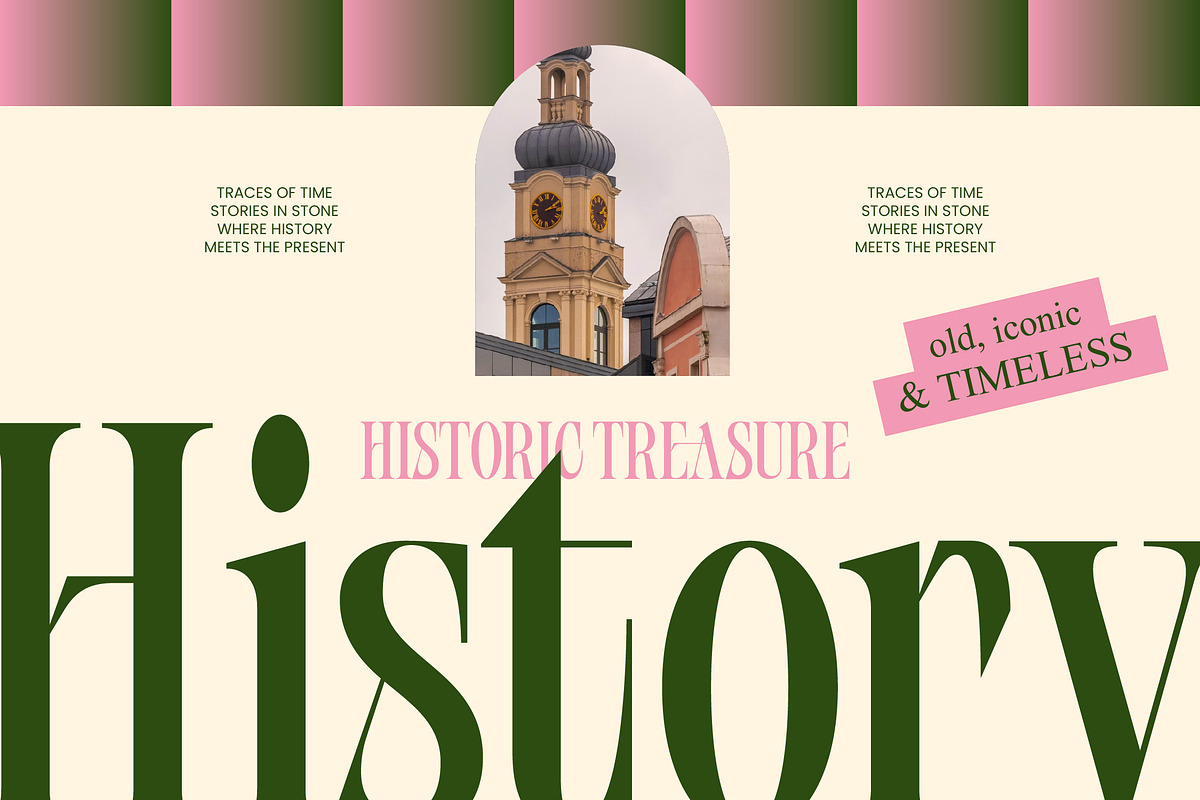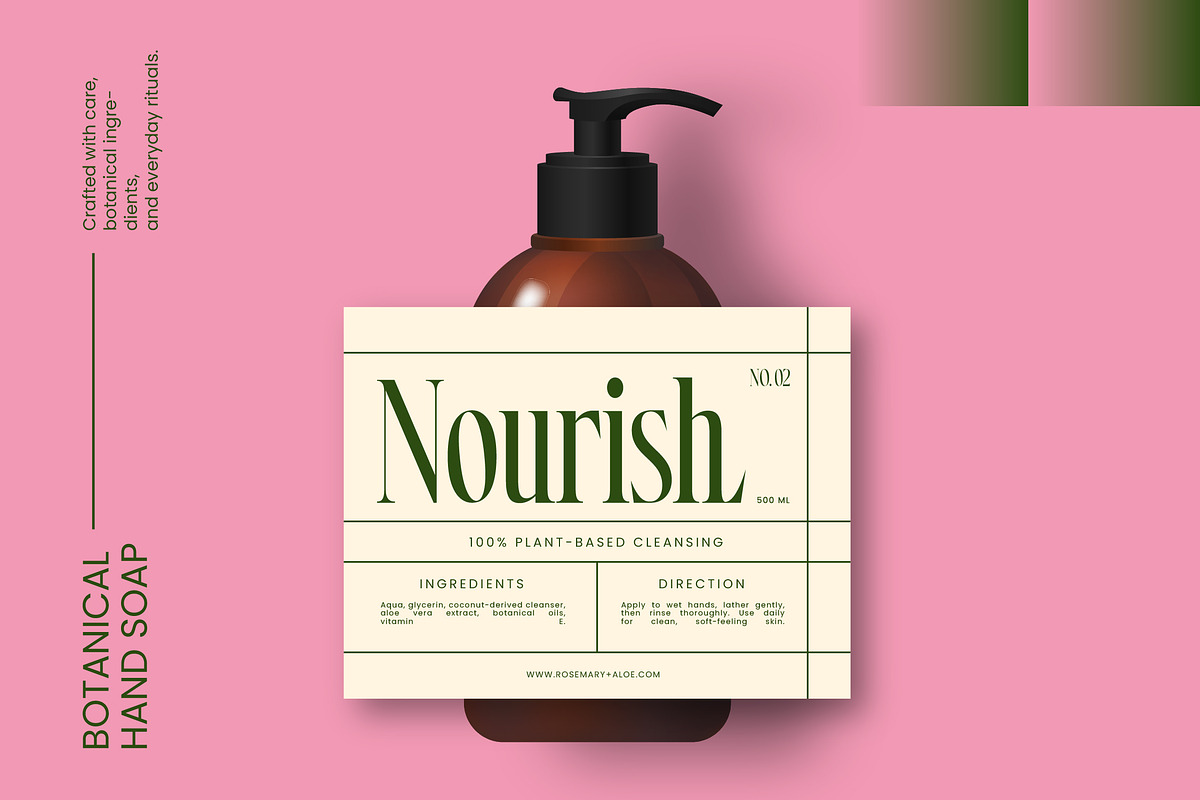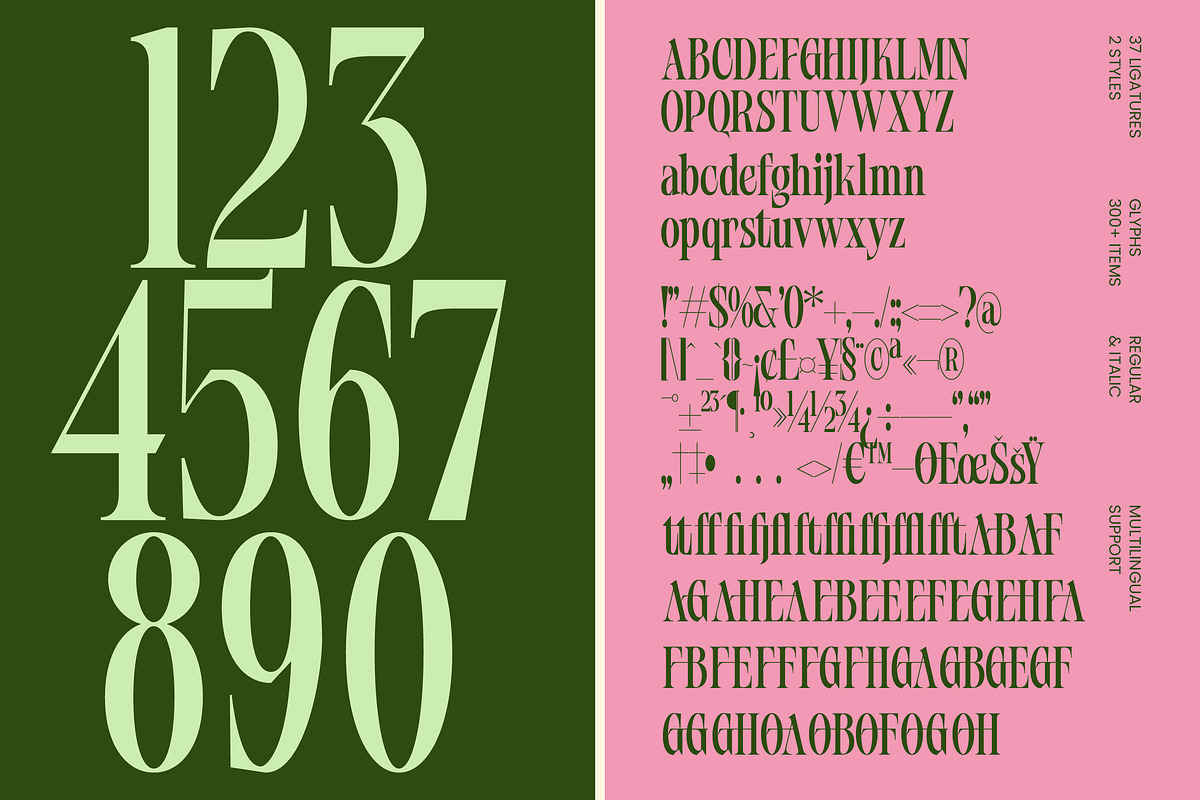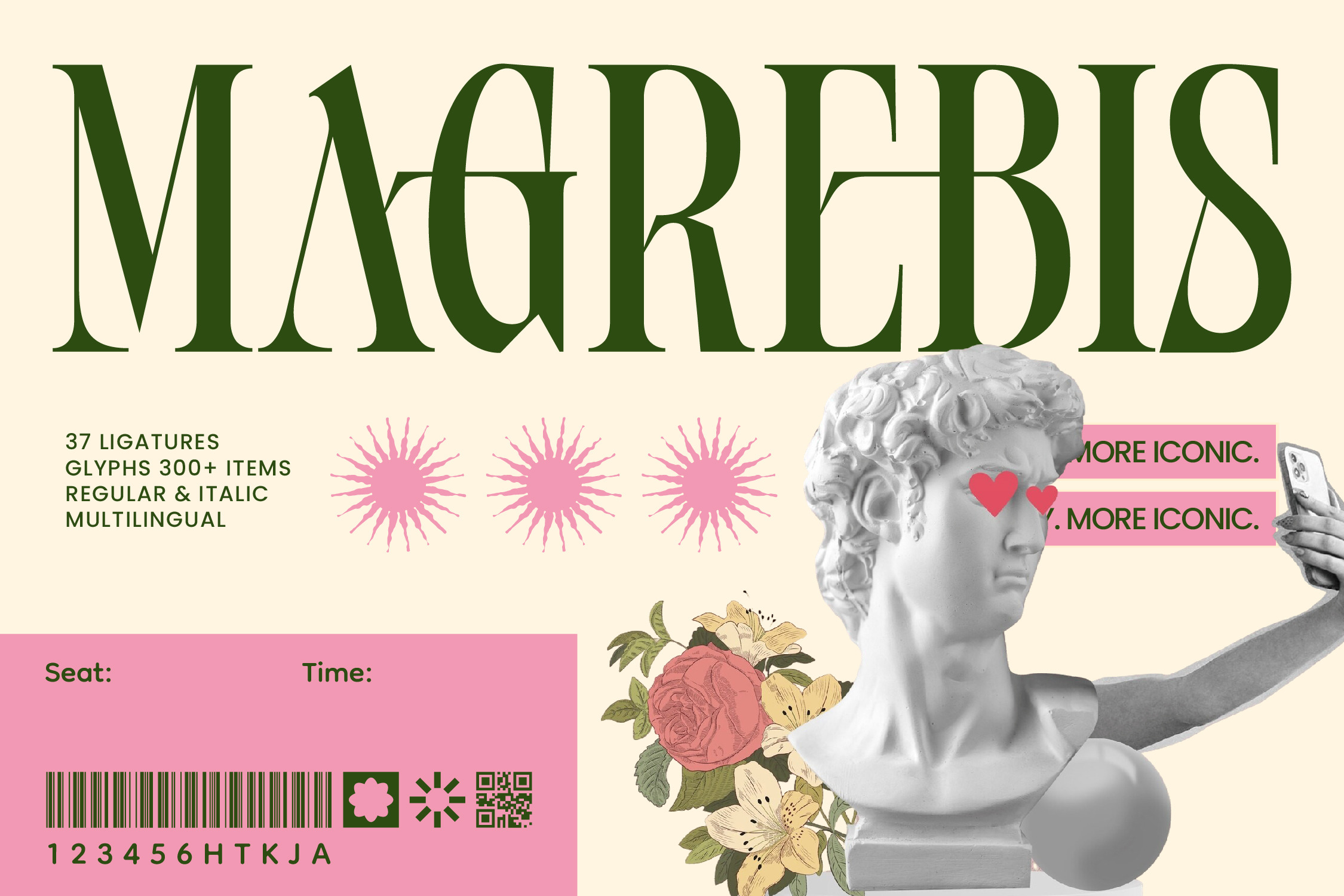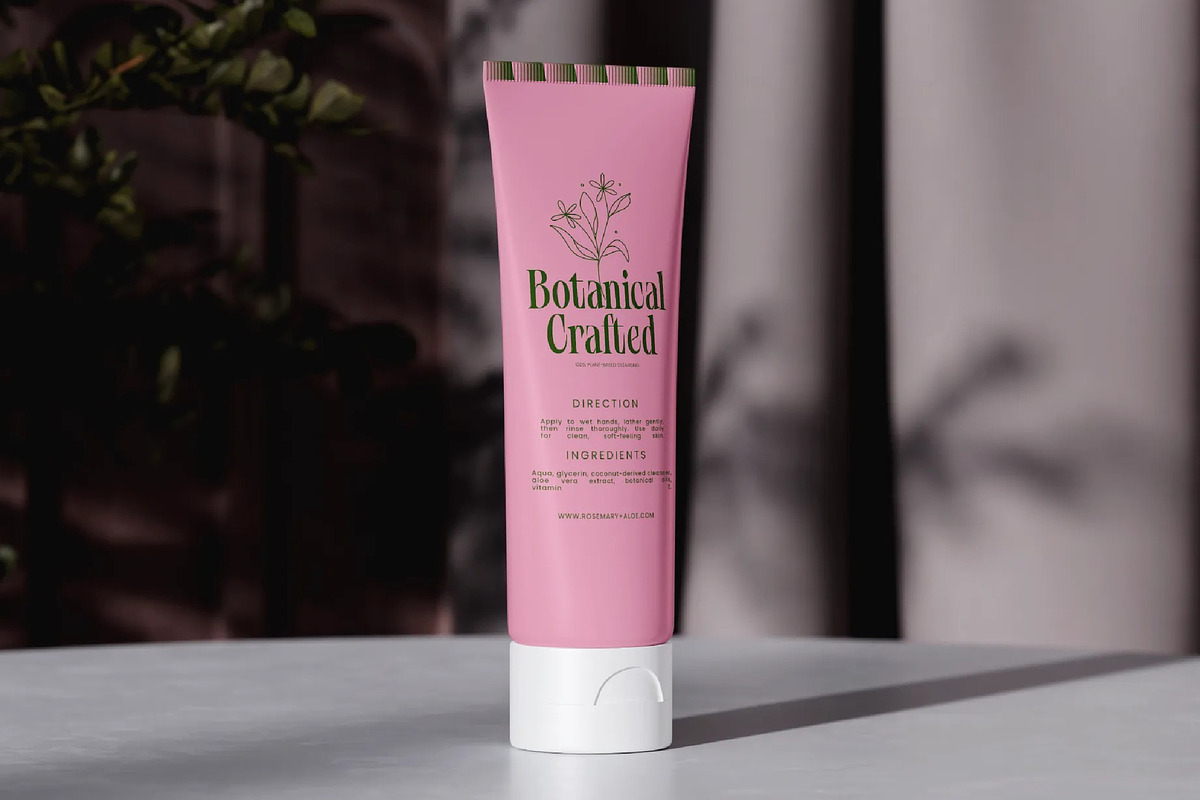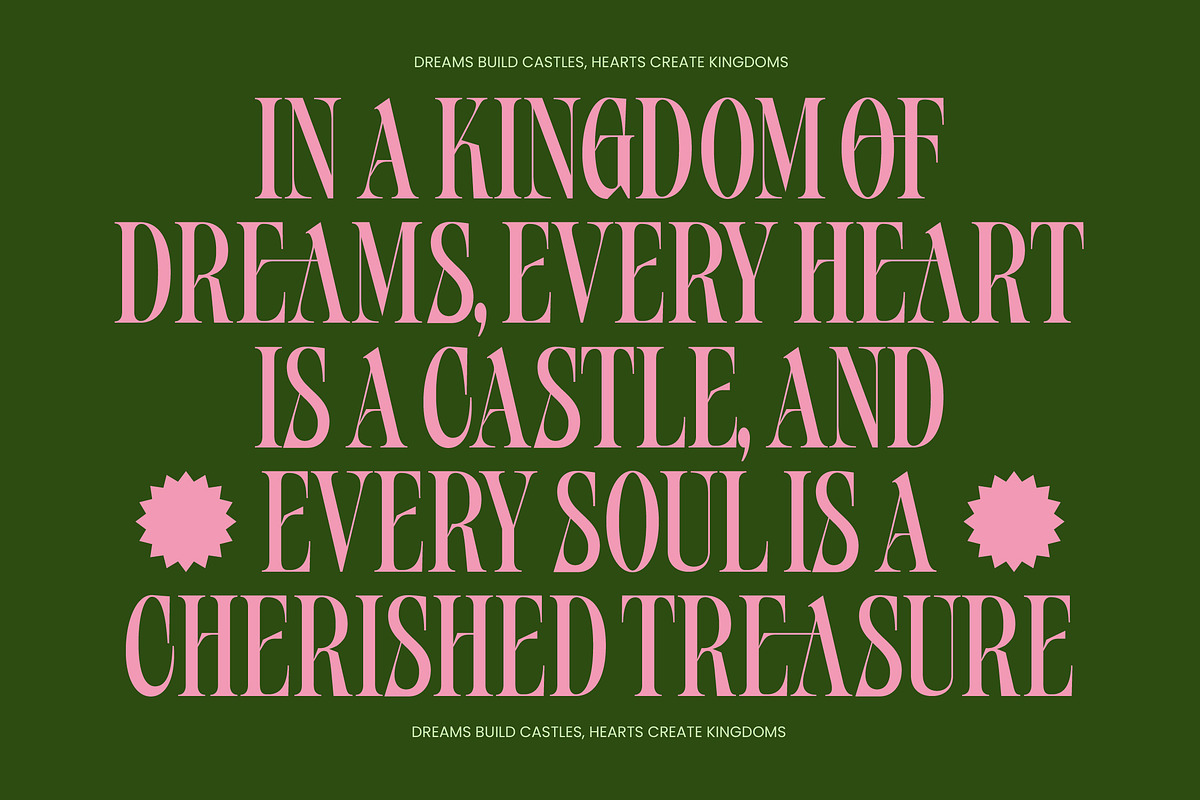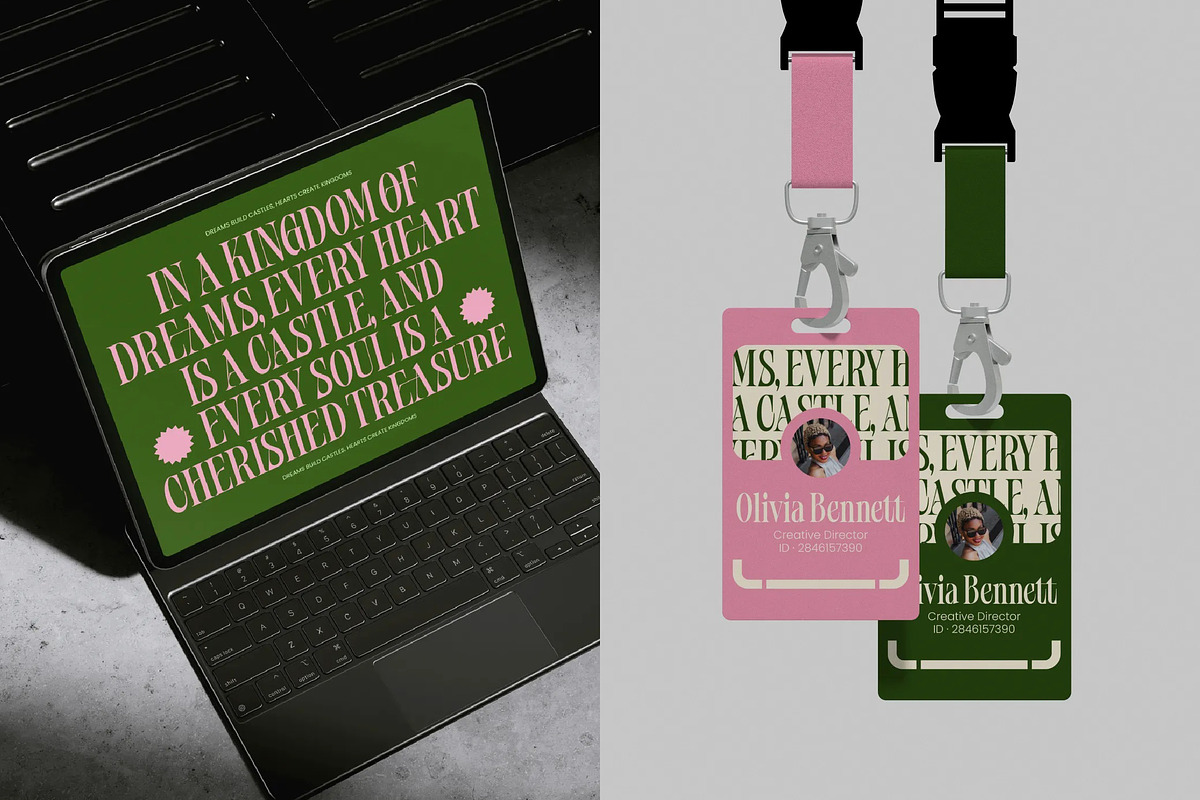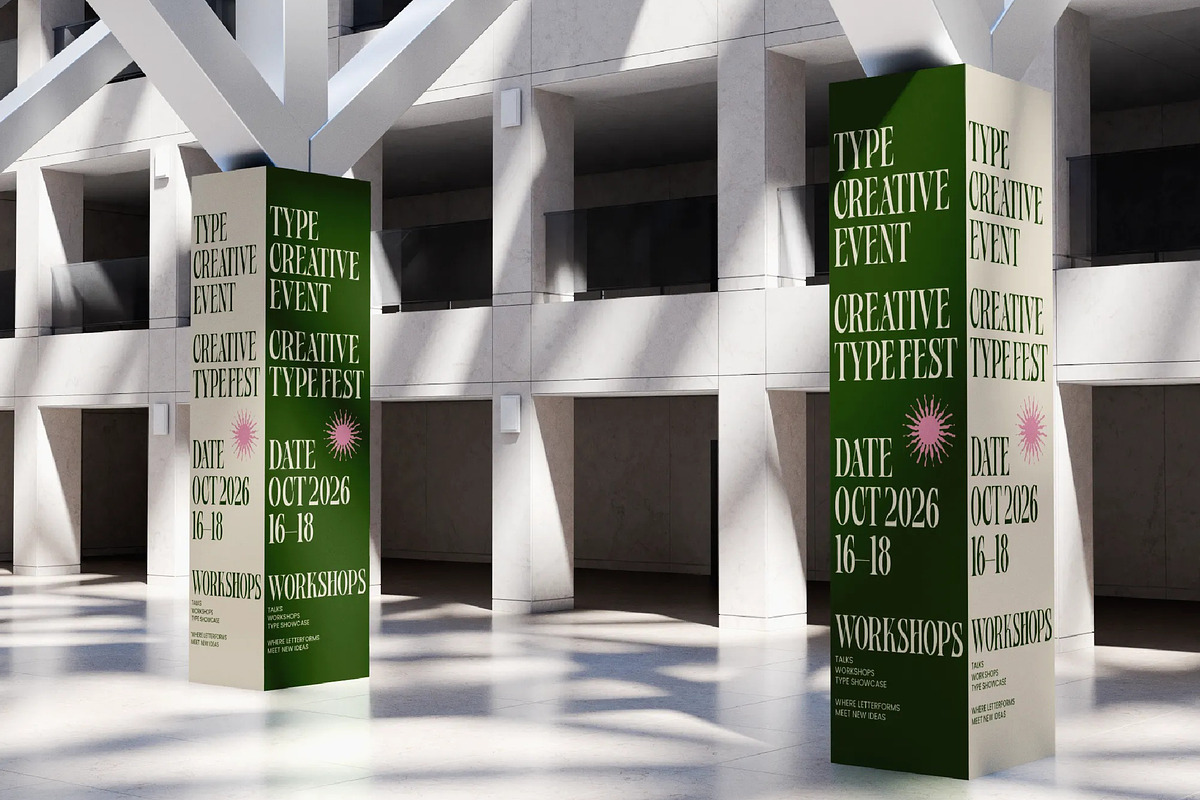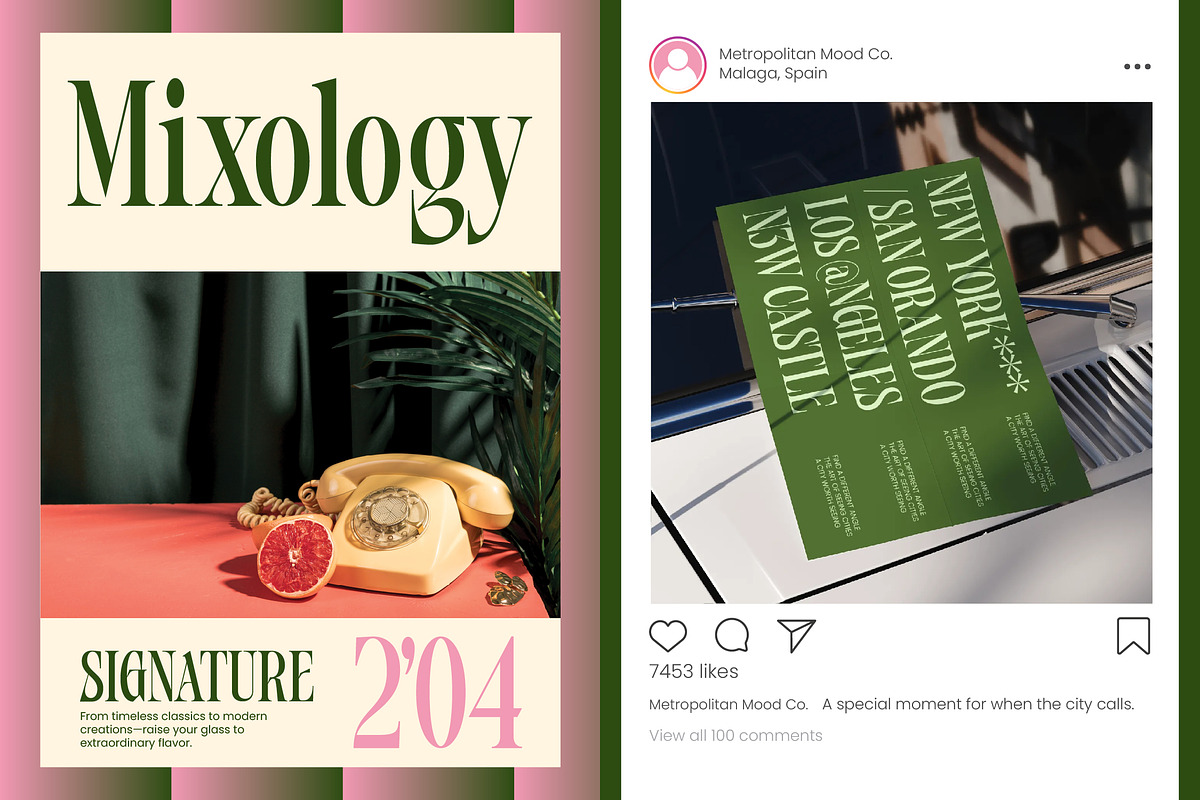
Magrebis Modern Serif Font
Elevate your design aesthetic with the timeless elegance of Magrebis – Modern Serif Font. This typeface combines high-contrast strokes with a sophisticated modernist flair, creating a look that is both bold and refined. By blending classical proportions with contemporary sensibilities, Magrebis – Modern Serif Font offers a distinctive visual rhythm that commands attention on any digital or printed canvas.
Unlock unparalleled creative freedom using the expansive features built into Magrebis – Modern Serif Font. Featuring over 300 glyphs and 37 unique ligatures, this font provides designers with the tools to craft bespoke typography and fluid layouts. With its extensive multilingual support, Magrebis – Modern Serif Font adapts seamlessly across global markets, making it incredibly versatile for international projects requiring a consistent and premium brand voice.
Experience the perfect marriage of form and function, making Magrebis – Modern Serif Font the ultimate choice for high-end creative work. It is perfect for luxury branding, editorial design, and fashion magazines where a sense of prestige is paramount. Whether utilized for cosmetic packaging, sophisticated social media layouts, or minimalist logo designs, Magrebis – Modern Serif Font ensures your message is delivered with unmatched clarity and style.
Future-proof your design toolkit with a typeface that defines contemporary luxury. Investing in Magrebis – Modern Serif Font means choosing a professional-grade typeface that balances artistic expression with commercial viability. Its clean lines and artistic ligatures guarantee a high-impact finish, ensuring that every project featuring Magrebis – Modern Serif Font stands out as a masterpiece of modern graphic design.